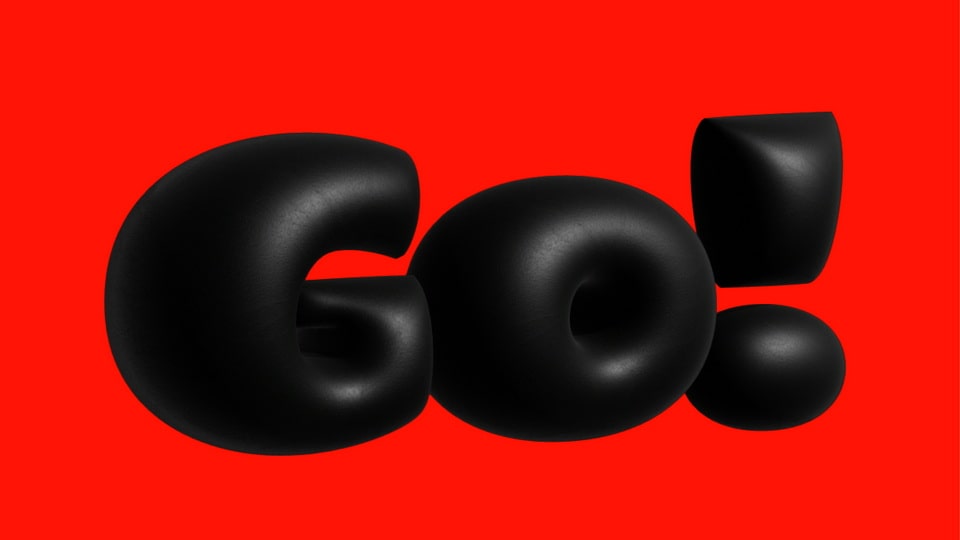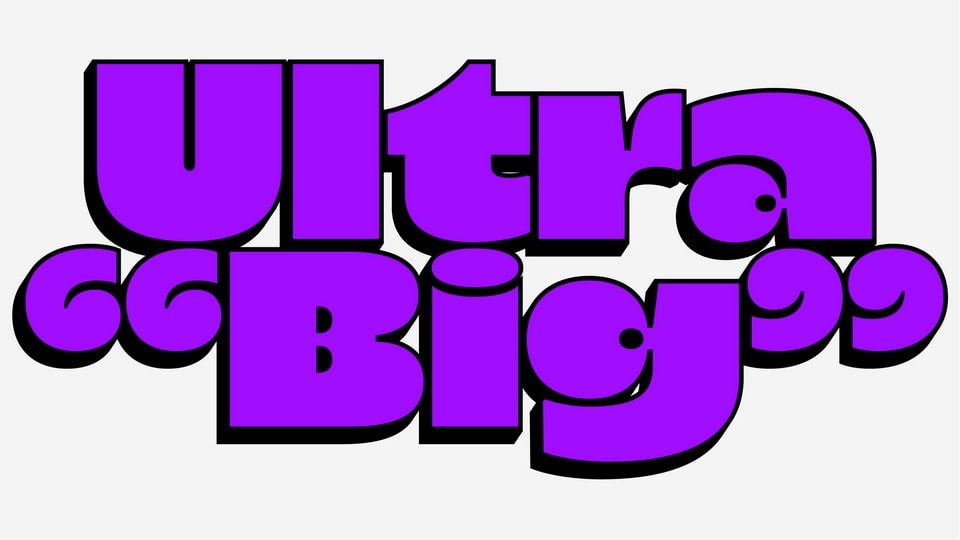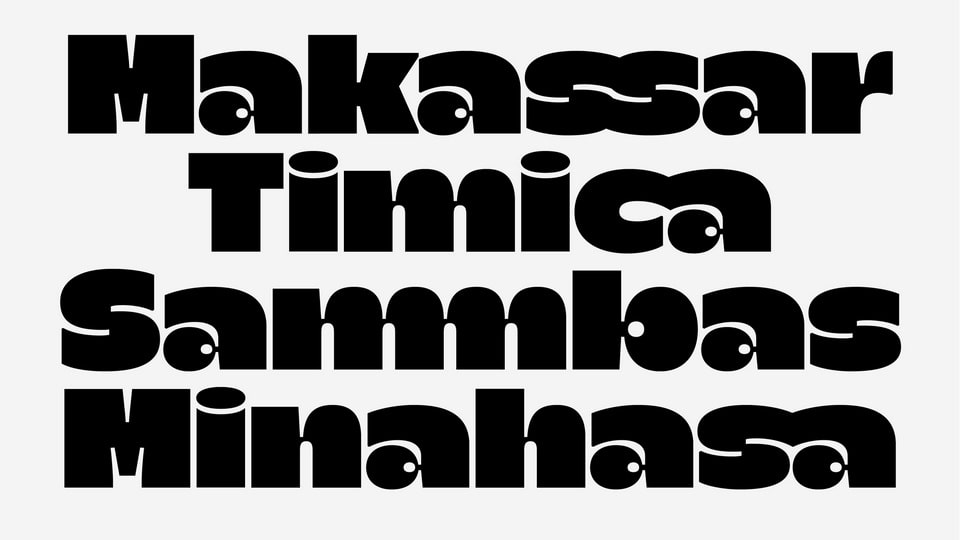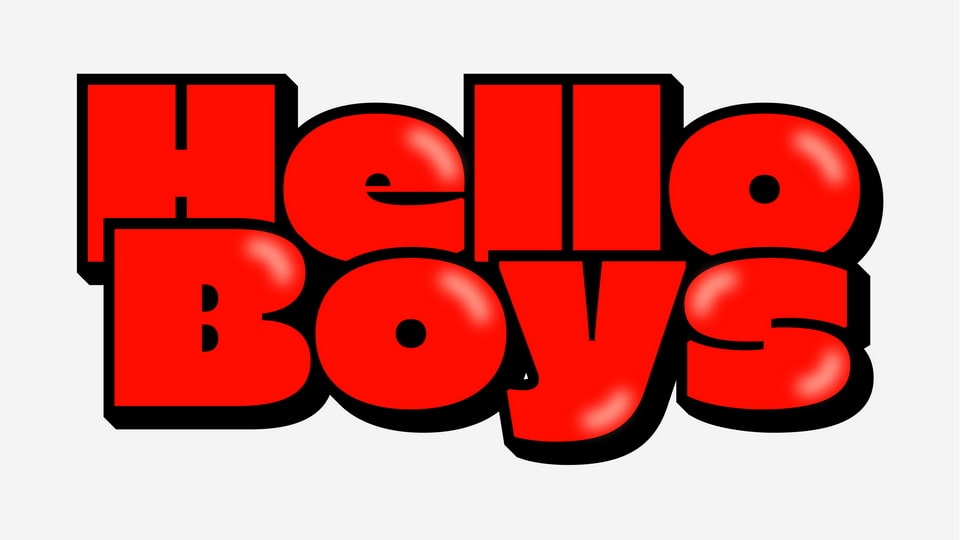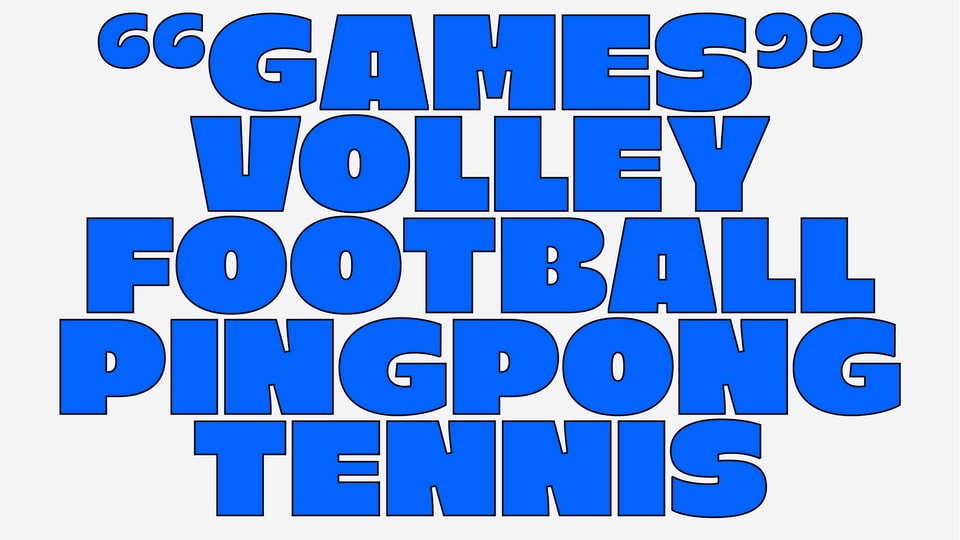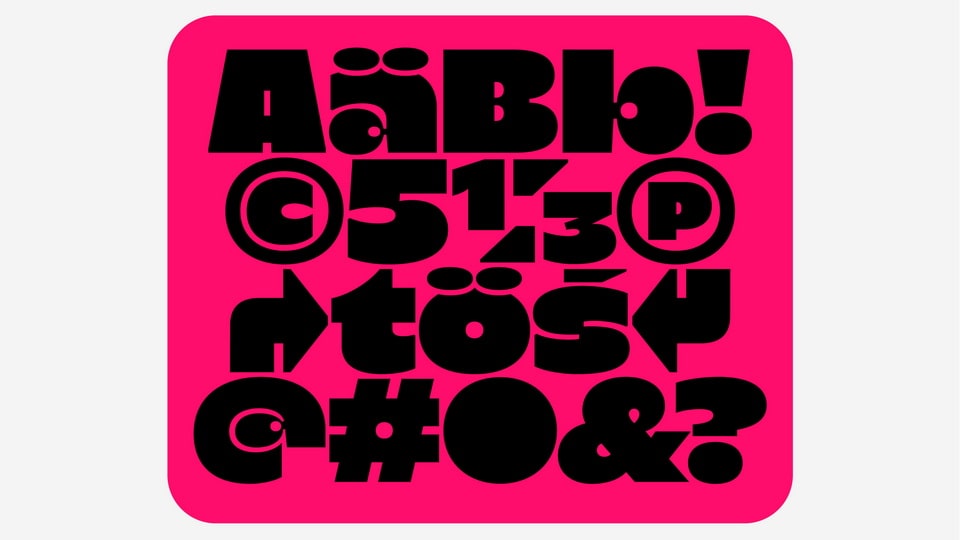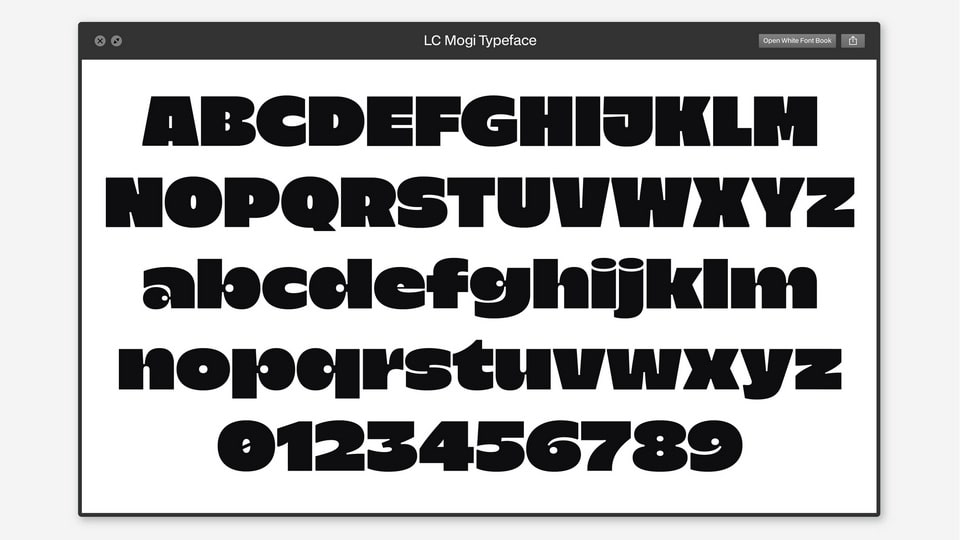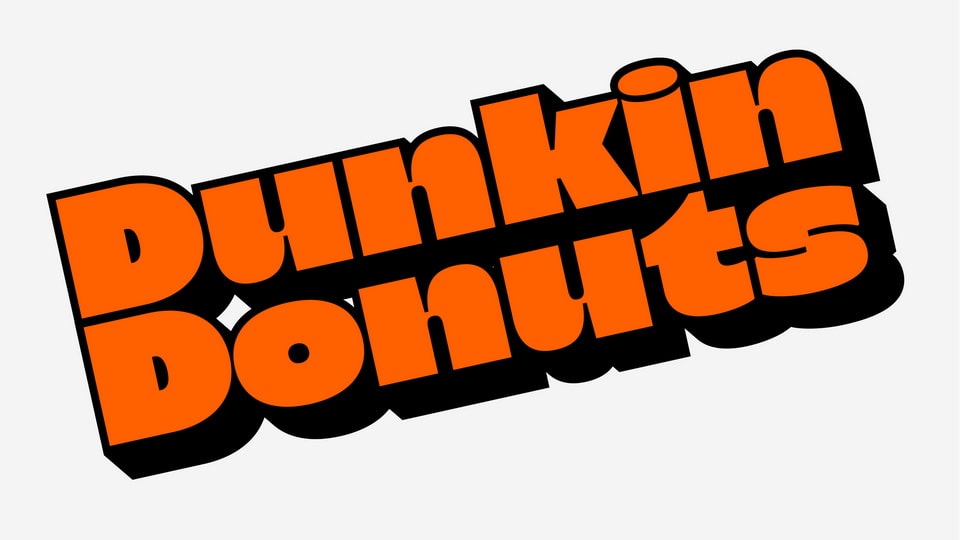
LC Mogi Font
LC Mogi is a playful font with its own strong character and unique charm. Adds an extra touch of playfulness with its distinctive bouncy and chubby letterforms, reminiscent of the plumpness of Bubblegum.
LC Mogi is suitable for a range of design projects that require a touch of lightheartedness. Whether used in headlines, posters, or branding materials.